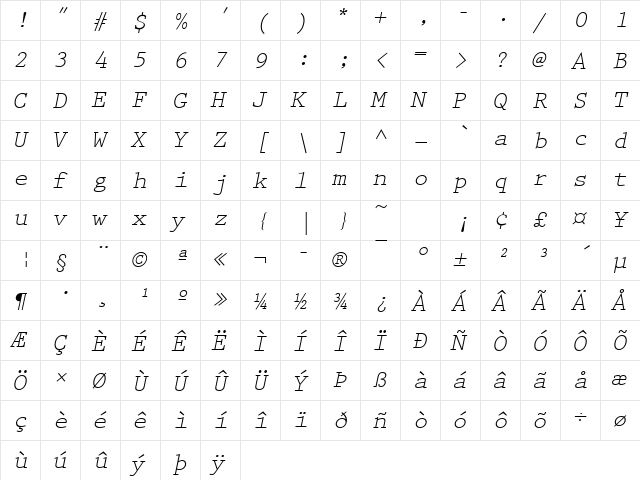
Prestige Becker Oblique
Design Context for Prestige Becker Typeface
Prestige Becker offers clean, dependable letterforms without strong stylistic allegiance, making it a practical choice for designers who need flexibility. The slanted form adds forward momentum and visual energy.